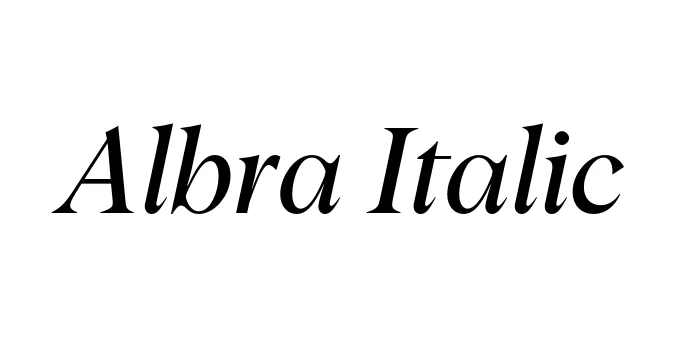
Albra Italic
Designed by BumBumType
Albra Italic is a sophisticated and elegant typeface that forms part of the expansive Albra family. Designed to strike a balance between classic serif traditions and contemporary high-contrast aesthetics, it features sharp terminals and fluid curves that convey a sense of timeless luxury. This italic variant specifically enhances the collection by providing a graceful, rhythmic flow that is ideal for emphasis in editorial layouts.
The development of Albra Italic focused on versatility across both digital and print media. Its high-contrast strokes and refined proportions make it a favorite for high-end branding, fashion magazines, and sophisticated web design. As a modern interpretation of vintage influences, it bridges the gap between the 1970s editorial style and current minimalist trends, ensuring it remains a staple for designers seeking a professional yet artistic edge.
Albra Italic Best Uses
Perfect for headlines and pull quotes in premium magazines.
Ideal for high-end luxury and fashion brand identities.
Adds a sophisticated touch to headers and landing page navigation.
Great for aesthetic quotes and stylish graphic social media posts.